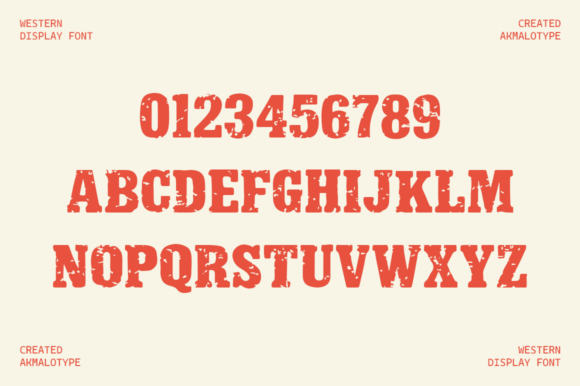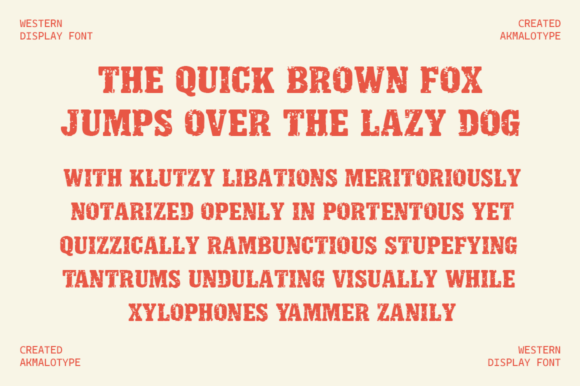
Unleash the Power of Rough-and-Tumble Aesthetics with HARTONE Font
In the world of design, fonts play a crucial role in conveying the tone and personality of a brand or project. If you’re looking for a font that exudes a rugged, wild, and unrefined vibe, look no further than HARTONE. This robust display font combines the free-spirited nature of the West with the edgy texture of grunge styles, making it perfect for designers and crafters who want to add a touch of boldness to their creations.
The Unique Characteristics of HARTONE Font
HARTONE is more than just a font – it’s a statement piece. Its bold, distressed texture gives it a one-of-a-kind look that’s sure to grab attention. The font features uppercase letters A-Z and numbers 0-9, making it ideal for impactful branding, expressive posters, and designs that require a healthy dose of rugged personality. Whether you’re working on a project that needs a touch of the Wild West or a grunge-inspired aesthetic, HARTONE is the perfect choice.
Key Features of HARTONE Font
• Robust Display Font: HARTONE is designed to make a statement with its bold and distressed texture.
• Western and Grunge Inspiration: The font brings together the wild spirit of the West and grunge styles for a unique look.
• Uppercase and Numbers: HARTONE features uppercase letters A-Z and numbers 0-9 for versatile use.
Why Choose HARTONE Font?
So, what sets HARTONE apart from other fonts? Here are just a few reasons why designers and crafters are falling in love with this rugged display font:
• Adds a Touch of Personality: HARTONE’s unique texture and boldness bring a level of personality to your designs that’s hard to achieve with more traditional fonts.
• Perfect for Branding and Posters: The font’s impact and expressiveness make it ideal for branding projects, posters, and any design that needs to stand out.
Using HARTONE Font in Your Designs
Ready to unleash the power of HARTONE in your designs? Here are a few tips to get you started:
• Pair with Simpler Fonts: Balance out HARTONE’s boldness by pairing it with simpler fonts for body text or supporting elements.
• Experiment with Colors: Take advantage of HARTONE’s distressed texture by experimenting with different colors and gradients.
• Play with Sizes: Don’t be afraid to vary the size of your text to create visual interest and hierarchy in your designs.
In conclusion, HARTONE font is a game-changer for designers and crafters looking to add a touch of rough-and-tumble aesthetics to their projects. With its unique blend of Western and grunge styles, bold and distressed texture, and convenient formats, HARTONE is the perfect choice for anyone looking to make a statement. So why settle for ordinary fonts when you can unleash the power of HARTONE and give your designs a distinct and memorable voice?
Get Ready to Make Your Mark with HARTONE Font
Whether you’re a seasoned designer or a crafty DIY enthusiast, HARTONE font is sure to inspire your next project. With its rugged charm and unrefined vigor, this robust display font is ready to leave an enduring mark on the world of design. So go ahead, take the leap, and experience the impact of HARTONE for yourself.